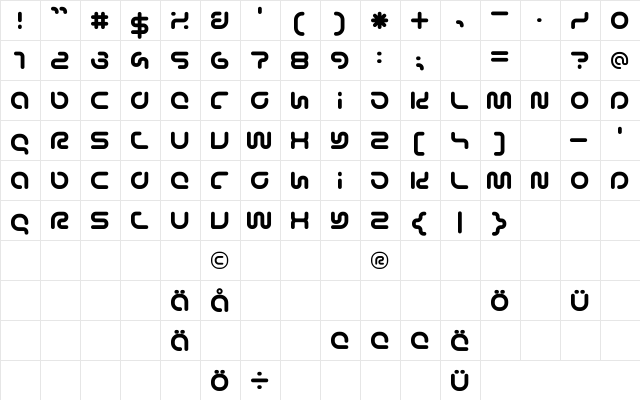
DS Popporn Regular
Design Context for DS Popporn Typeface
DS Popporn is a composed and adaptable typeface that performs quietly and consistently across a wide range of design contexts.